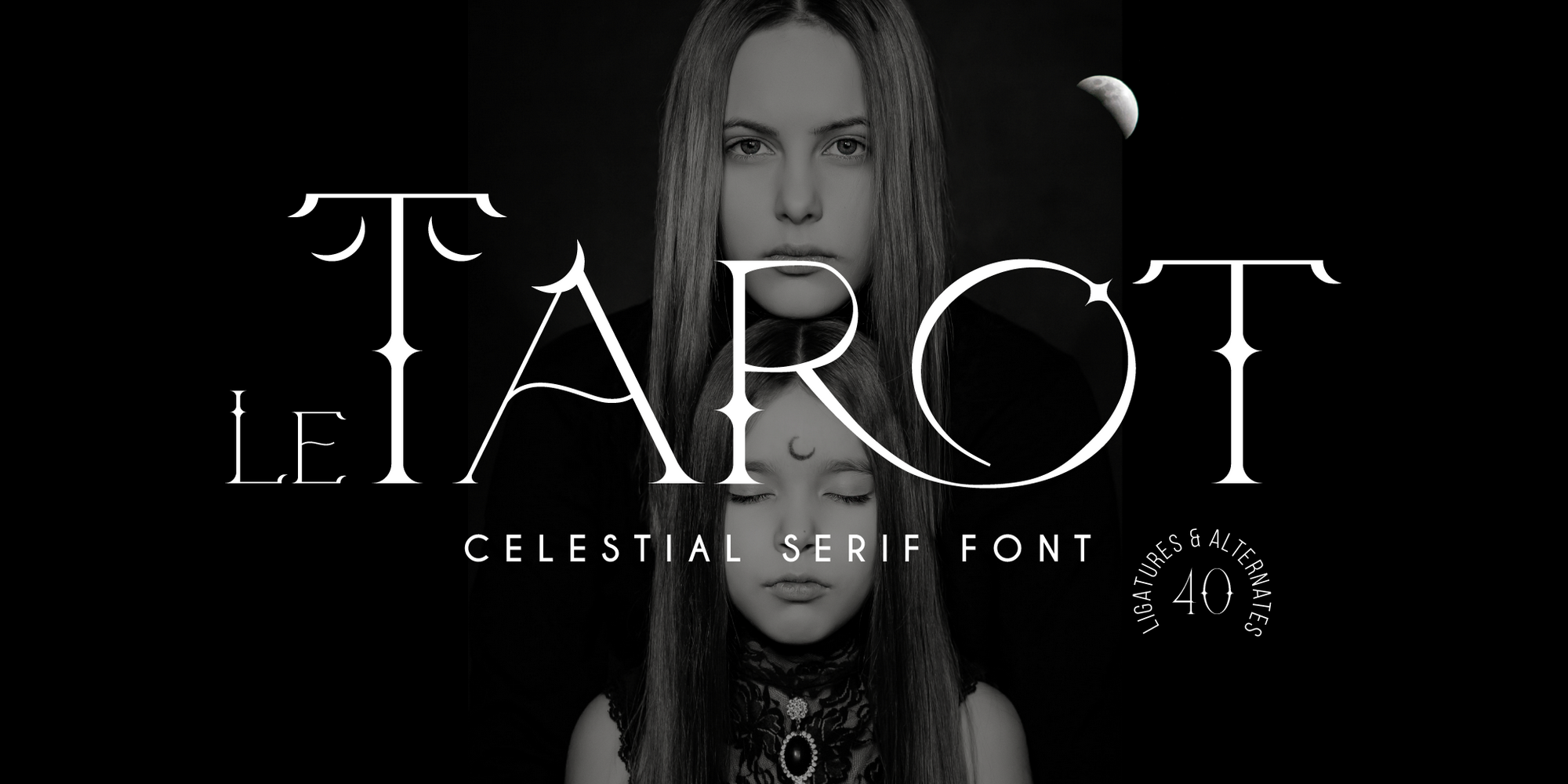
Le Tarot Font is perfect for mystical branding, tarot card designs, occult books, spiritual blogs, event invitations, and alternative lifestyle projects. Its enigmatic style captures the essence of mysticism and fortune-telling.
What makes Le Tarot Font so exciting is its unique blend of vintage elegance and mysterious symbolism. The delicate curves and sharp angles create a balance that feels both magical and refined, making your designs truly captivating.
The font family usually includes Regular, Italic, and Bold styles, along with some decorative alternates that enhance the mystical vibe. These options give designers flexibility while maintaining a cohesive theme.